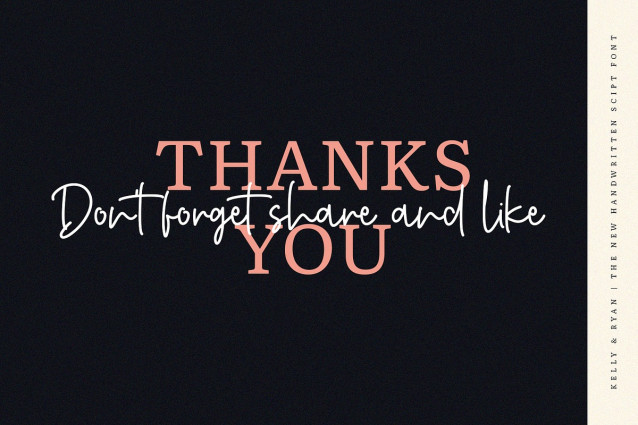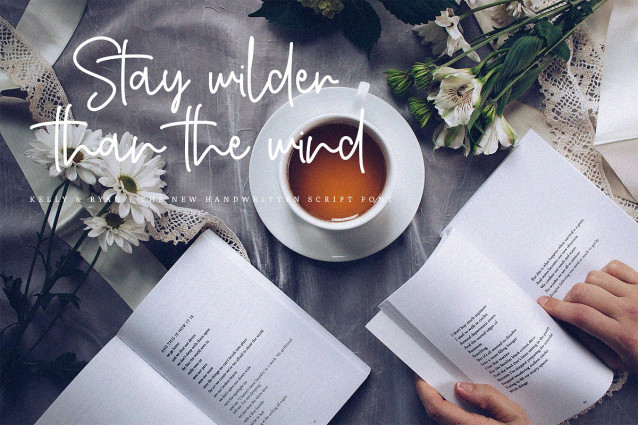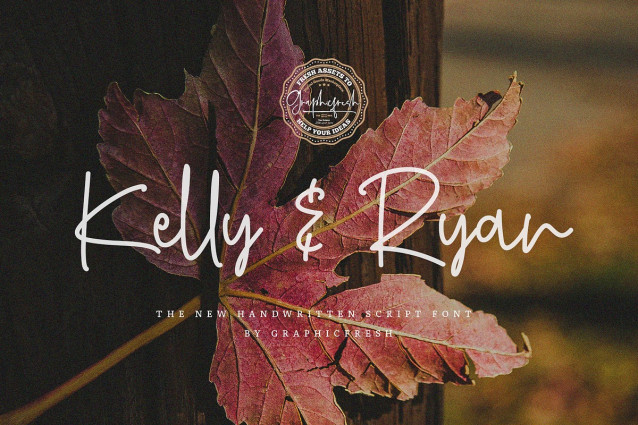
Kelly And Ryan Font
Kelly And Ryan Font | The Handwritten Font. It comes with an elegant and feminine style which is perfect to make any design stand out! This font is perfect for branding, wedding invites, magazines, mugs, business cards, quotes, posters, and more.